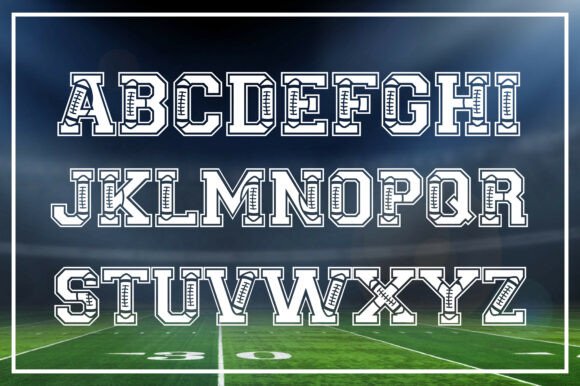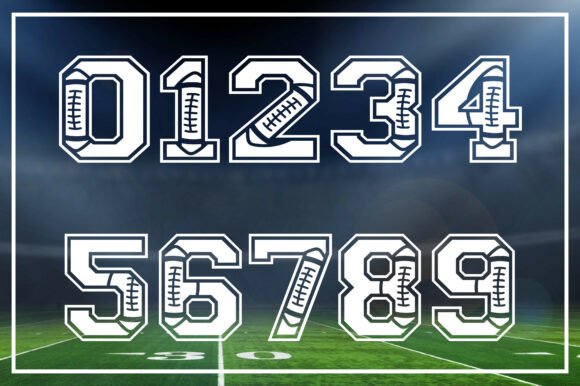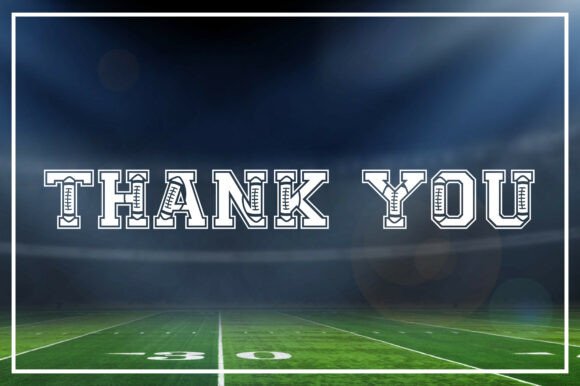
Score Big with Football Font: Elevate Your Designs with a Touch of Athletic Flair 🏟️
Are you a designer, crafter, or sports enthusiast looking to add a dash of excitement to your projects? Look no further than the Football Font SVG! This dynamic font is specifically designed to bring a sporty energy to your designs, making it perfect for team shirts, school projects, game-day party decorations, and more. In this article, we’ll dive into the features and benefits of Football Font, and explore how you can use it to take your designs to the next level.
What is Football Font?
Football Font is a bold, athletic font designed to evoke the spirit of sports and competition. This SVG font set includes the full A-Z alphabet, numbers 0-9, and varsity-style letters, all crafted to give your designs a dynamic, high-energy feel. Whether you’re creating custom team apparel, decorating for a game-day party, or working on a school project, Football Font is the perfect choice.
Key Features of Football Font
• Full A-Z Alphabet: Get instant access to all 26 letters of the alphabet, designed in a bold, athletic style.
• Numbers 0-9: Complete your designs with numbers that match the font’s sporty vibe.
• Varsity-Style Letters: Add a touch of classic sports flair with varsity-style letters that evoke the spirit of competition.
Football Font is designed with designers and crafters in mind. Whether you’re creating custom apparel, decorations, or accessories, this font is the perfect addition to your design toolkit. Here are just a few ideas to get you started:
• Team Shirts: Create custom team shirts with Football Font and make your team stand out.
• School Projects: Add a touch of sports flair to school projects, such as posters, presentations, or flyers.
• Game-Day Party Decorations: Create custom decorations, such as banners, signs, or garlands, to get ready for the big game.
Tips and Tricks for Using Football Font
To get the most out of Football Font, here are a few tips and tricks to keep in mind:
• Experiment with Colors: Try pairing Football Font with bold, bright colors to really make your designs pop.
• Mix and Match Fonts: Combine Football Font with other fonts to create a unique, dynamic look.
• Use with Images: Pair Football Font with sports-themed images, such as footballs, soccer balls, or jerseys, to create a cohesive design.